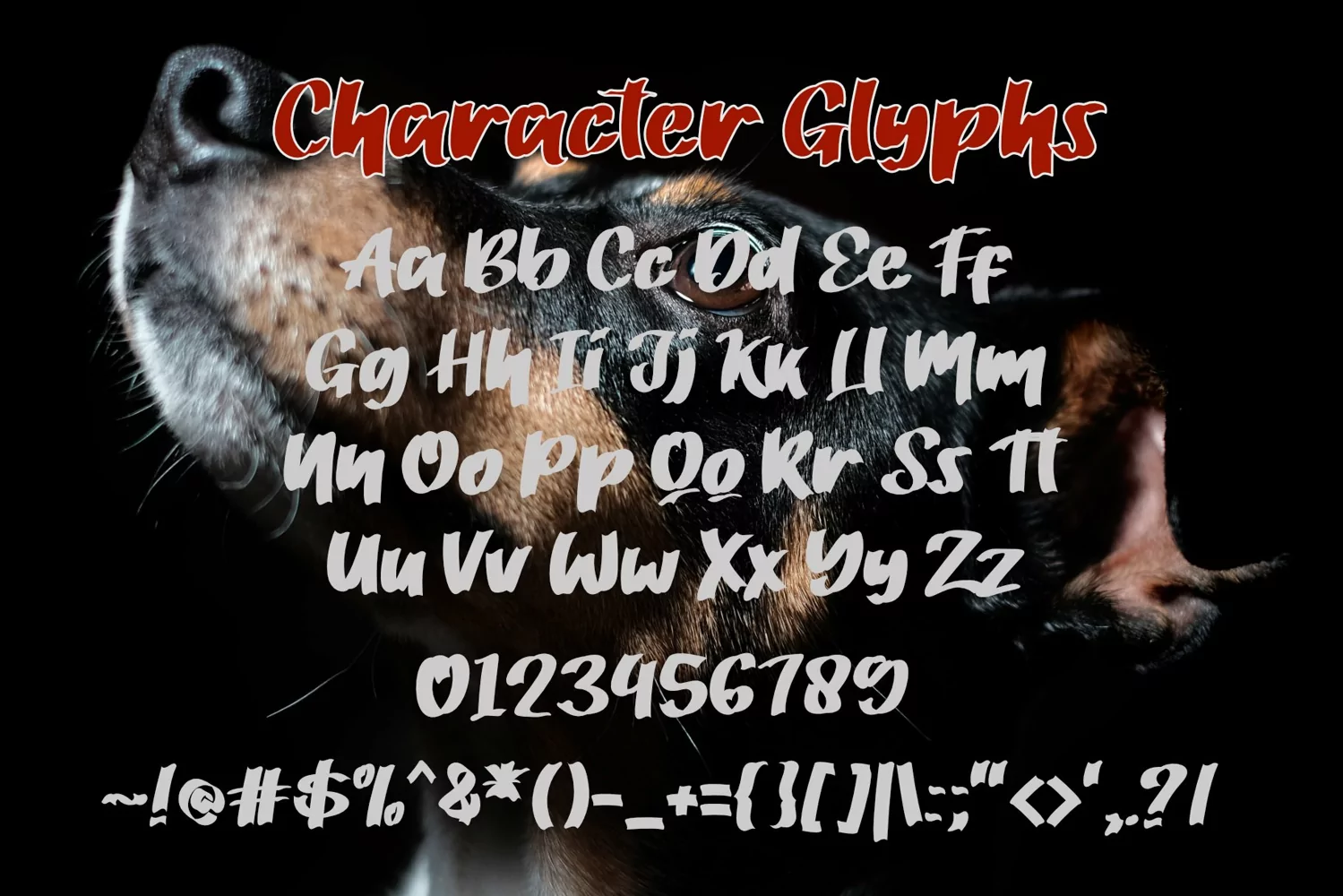
**Bullmars Font**
This pair was inspired by playful poster design that i saw on some coffee shop, It was crafted by hand specially to add natural handmade feeling in its brand identity than i make it clean with pentool.
Bullmars Font is very good looking in logo, labels, product packaging, invitations, advertising and others.